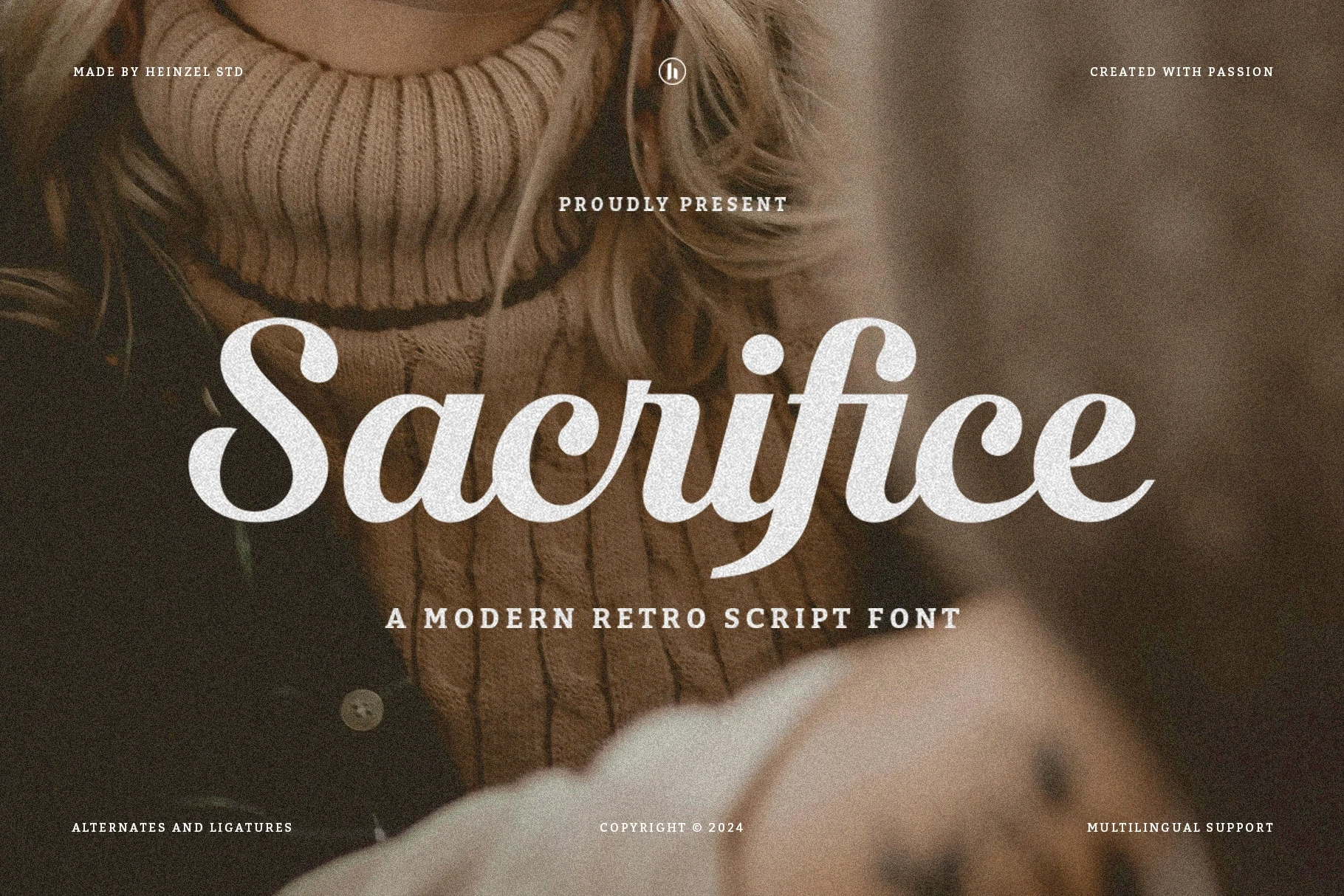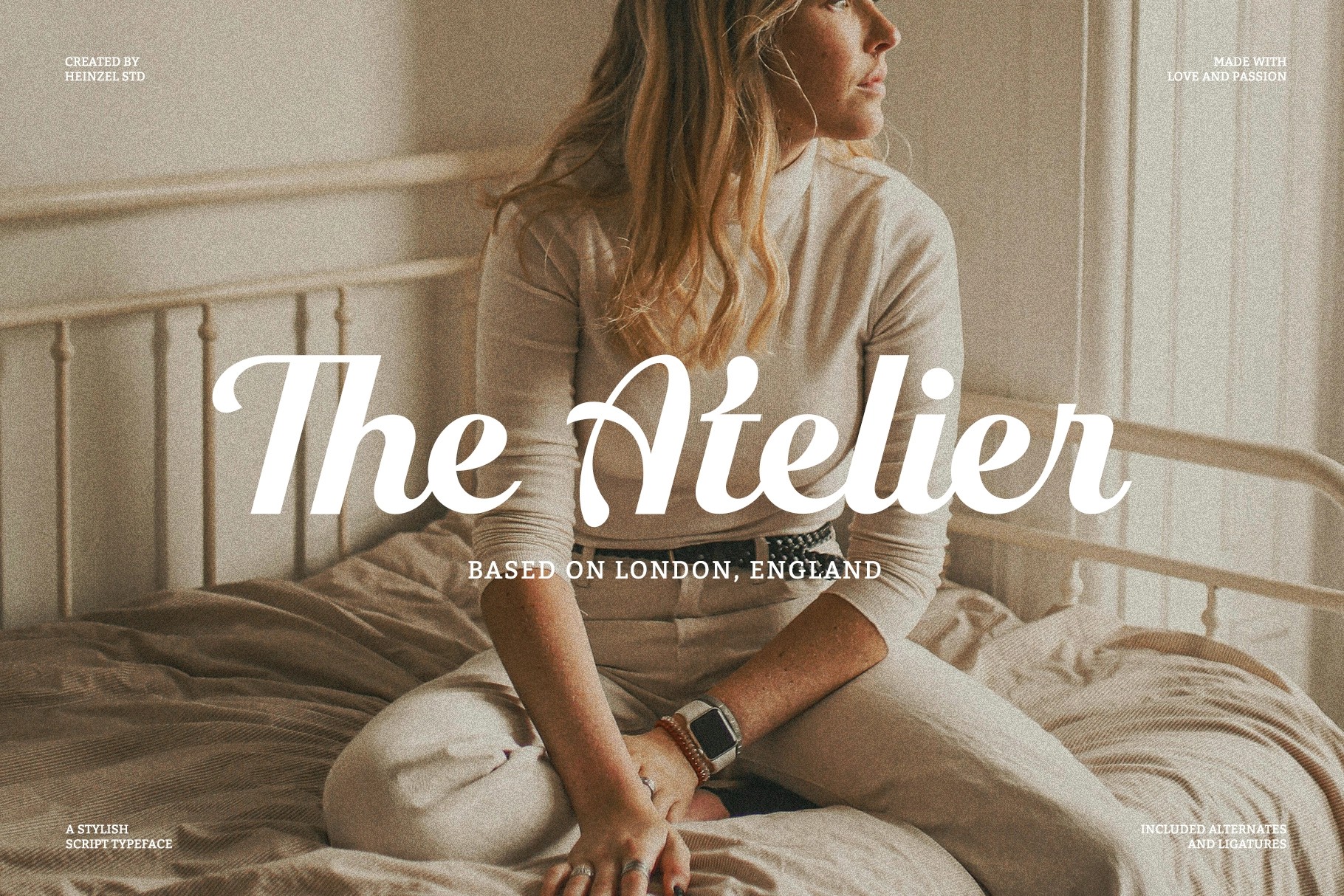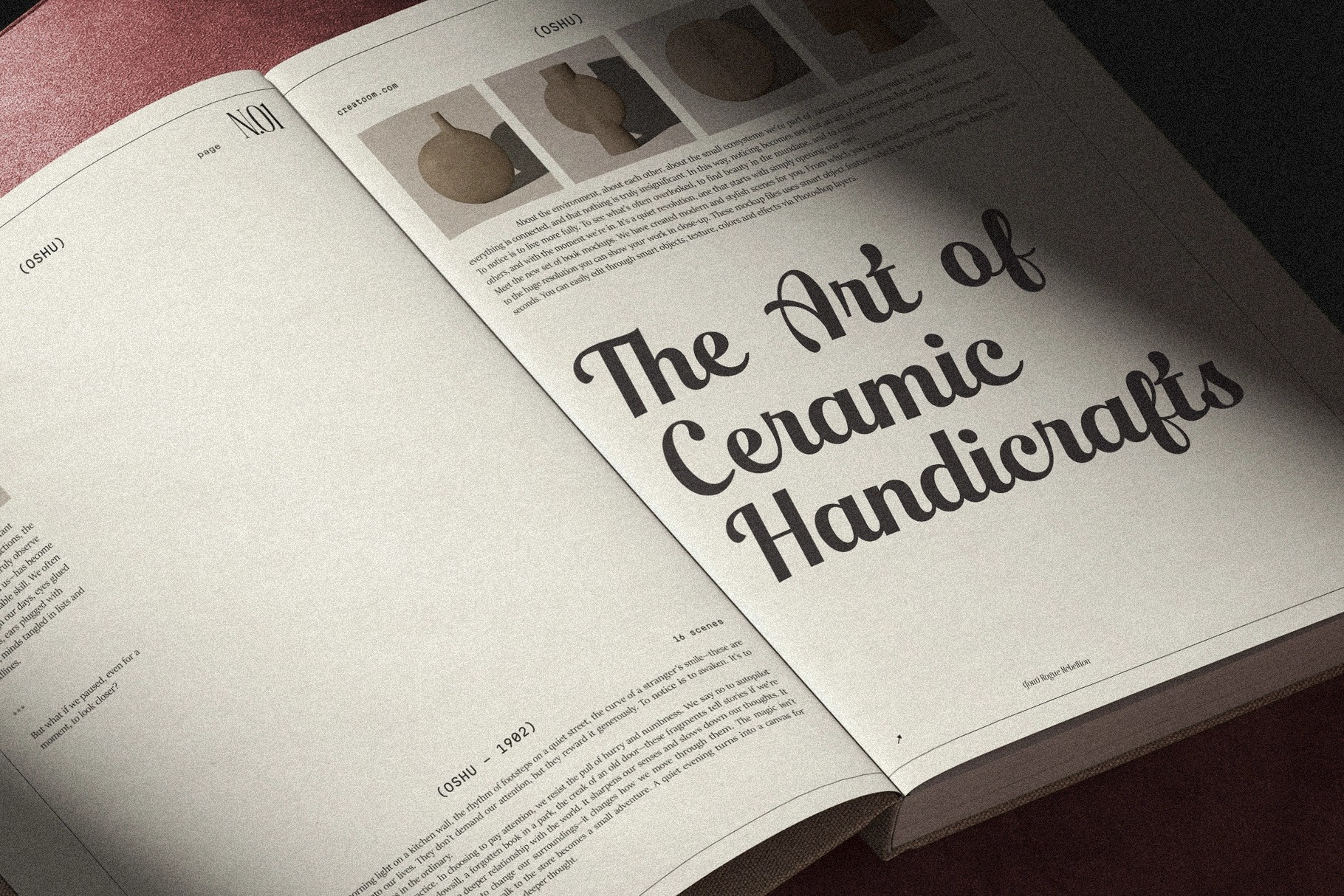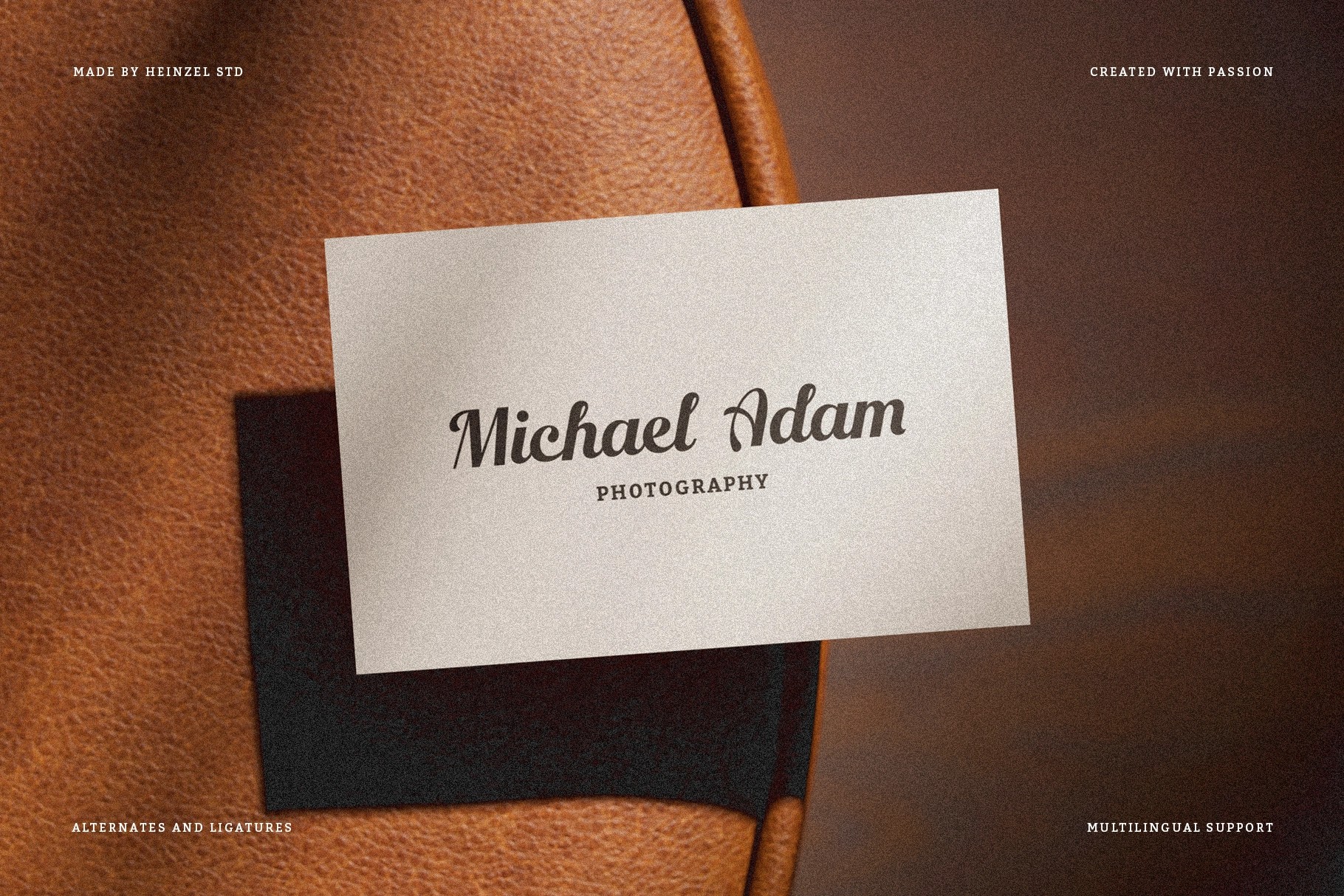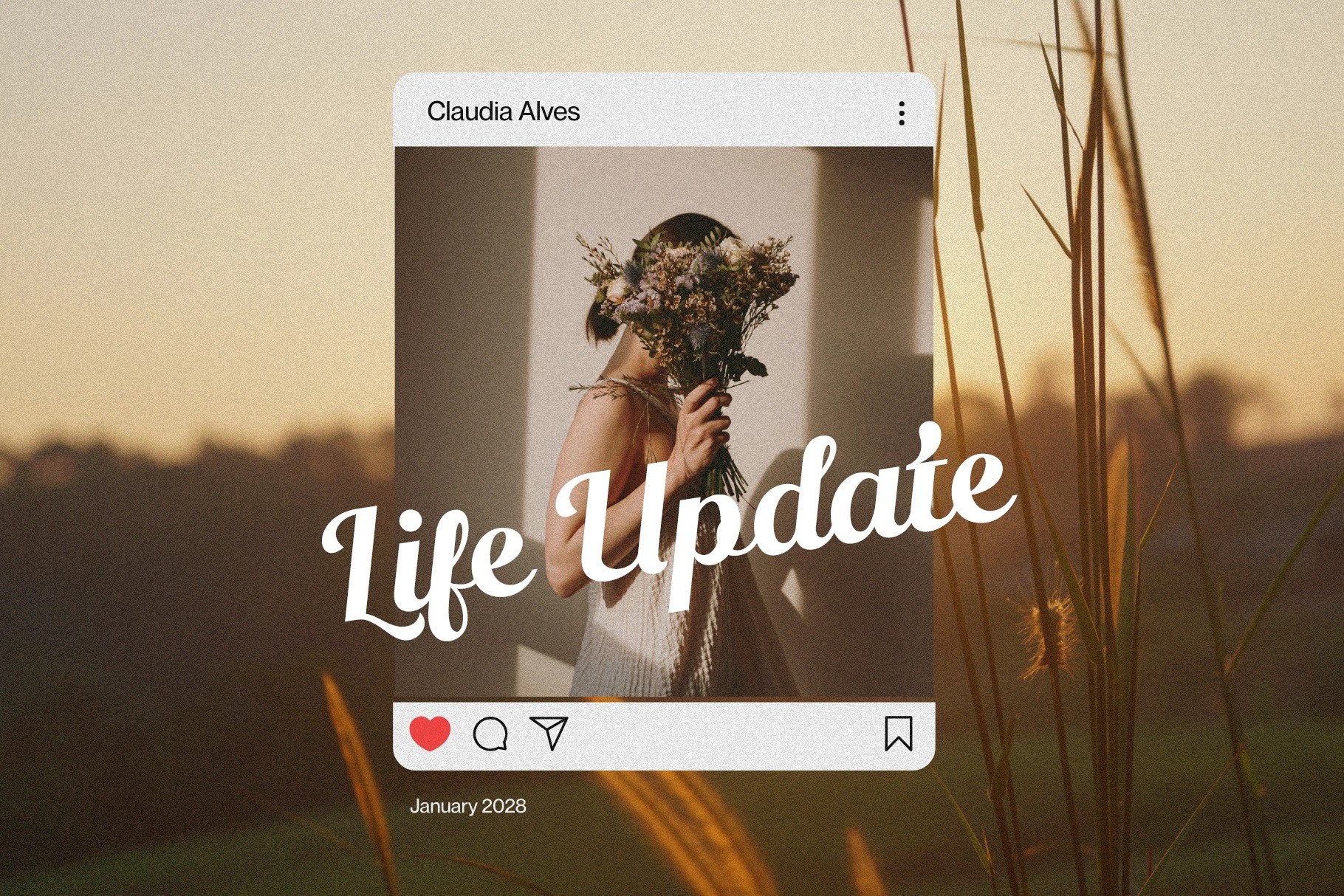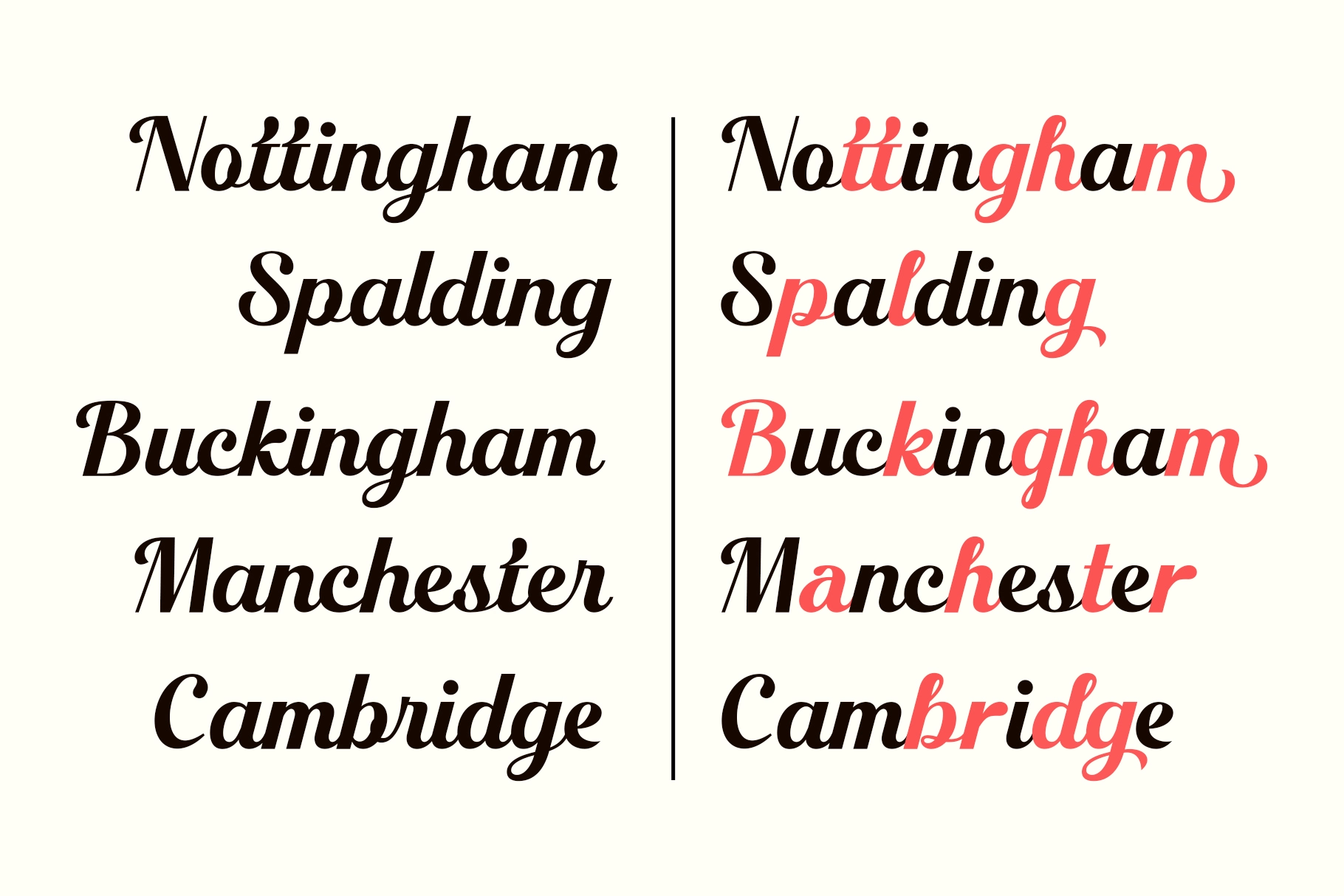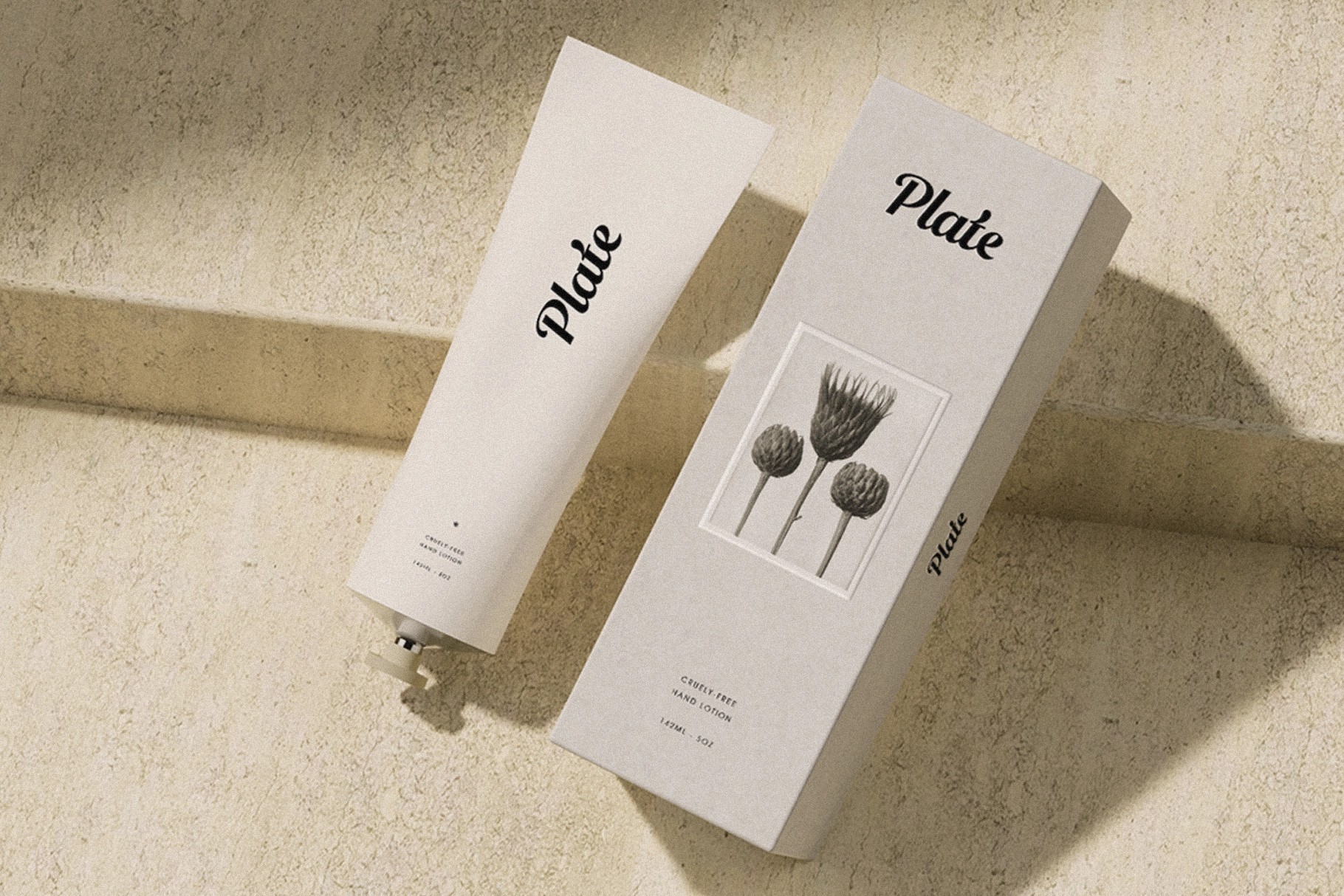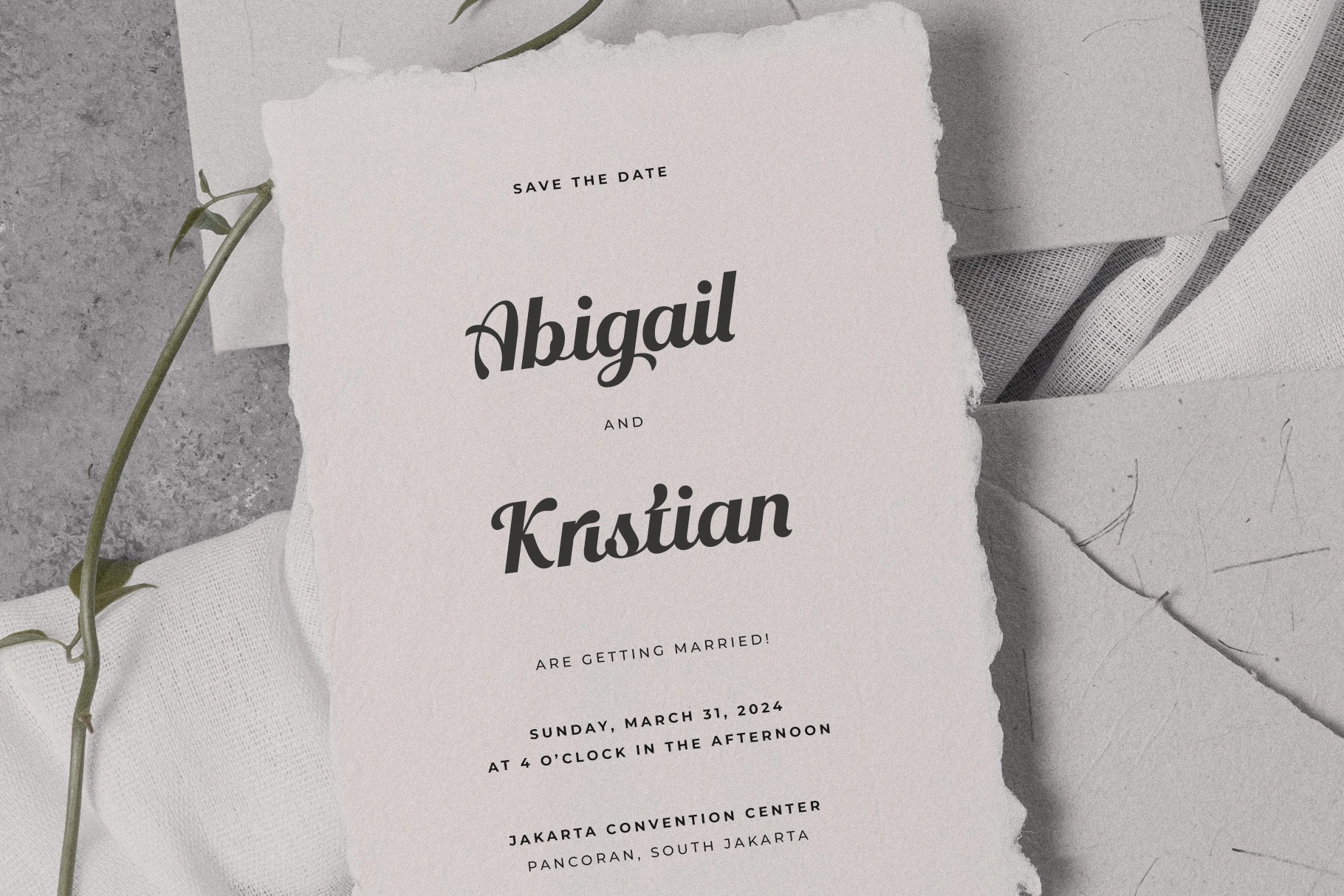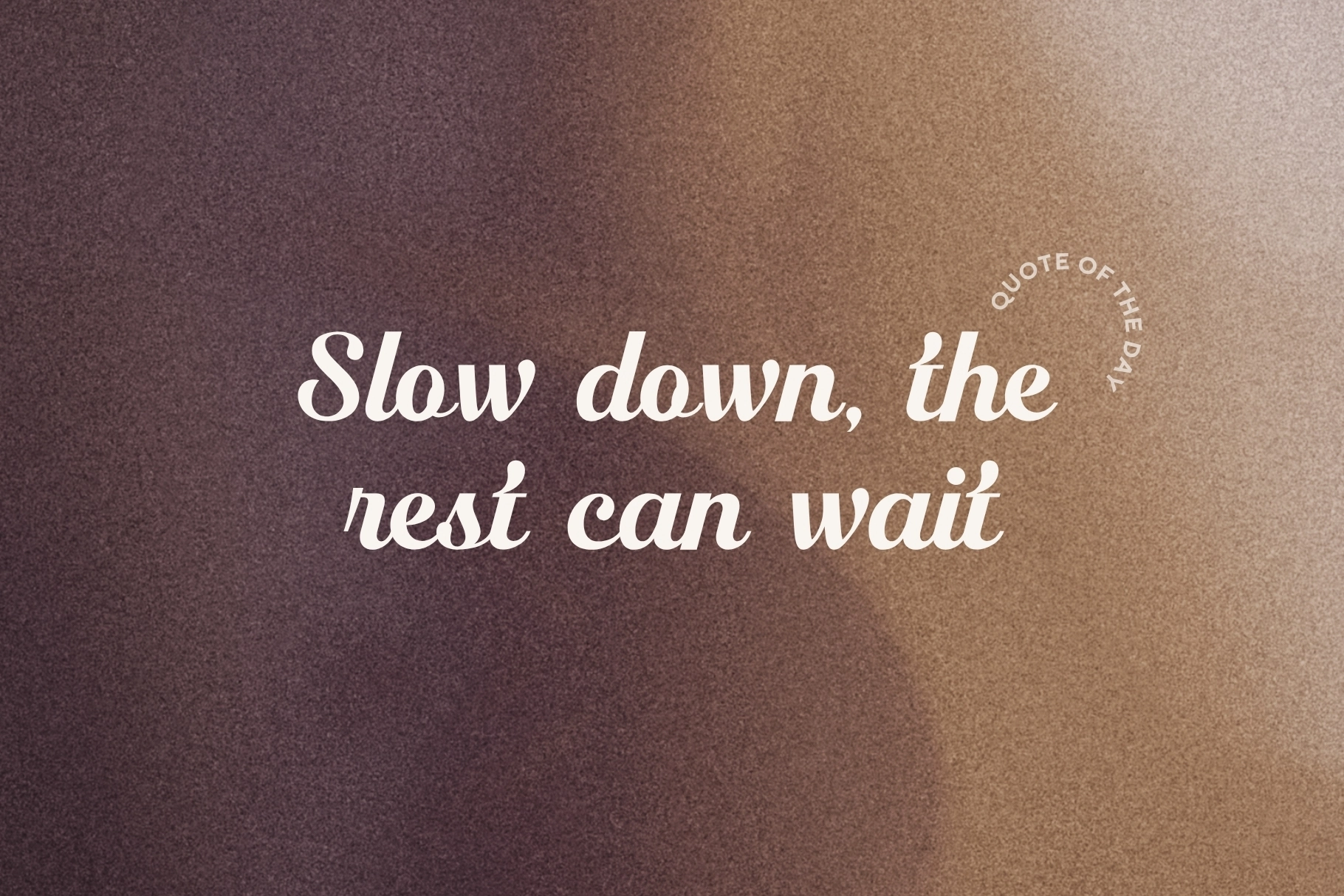
Sacrifice - Retro Script Font
Sacrifice runs on bold connecting swashes and a grainy, lived-in texture, the kind of retro script font that sits halfway between a 70s record label and a hand-painted shop sign. The strokes stay thick and confident through every connection, so the bounce of the script never thins out or gets fragile at smaller sizes.
The set carries a noticeable warmth at both display and mid-range sizes, with alternates and ligatures giving extra texture to repeated letter pairs. Use it for vintage logos, wedding invitations, packaging labels, quote graphics, editorial titles, and retro-leaning social posts.
- uppercase & lowercase;
- numerals, punctuation & symbols;
- alternates & ligatures;